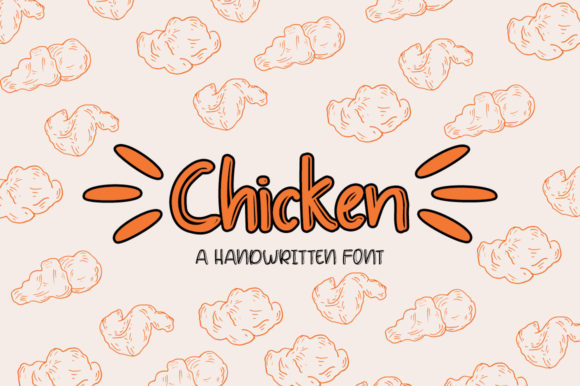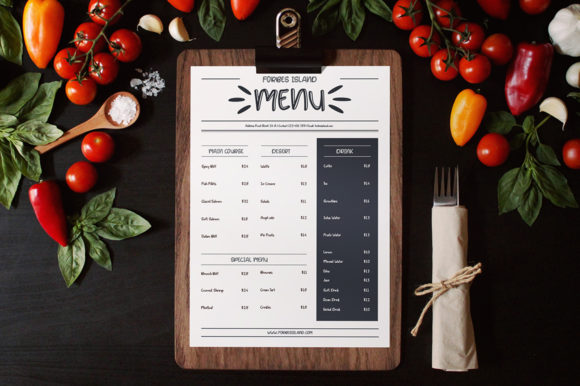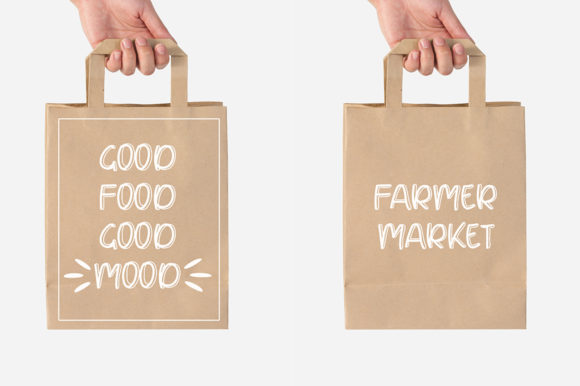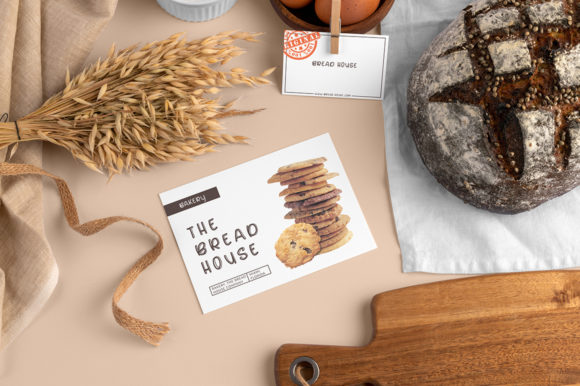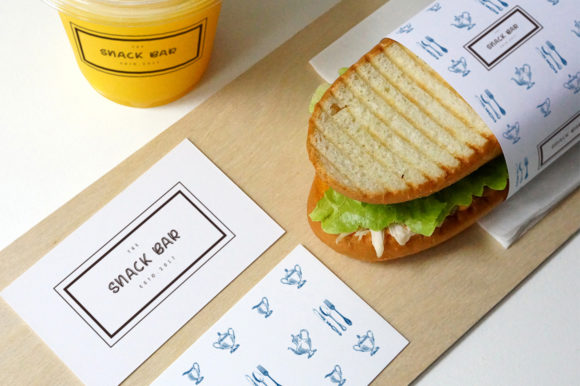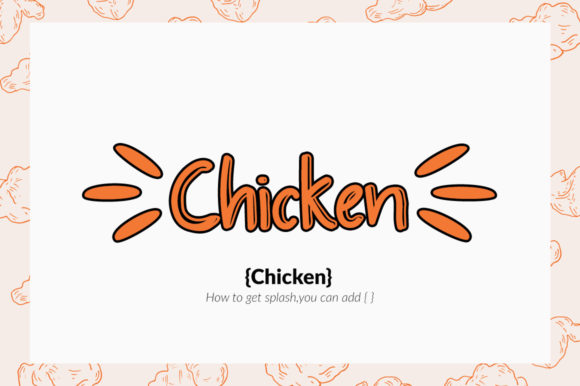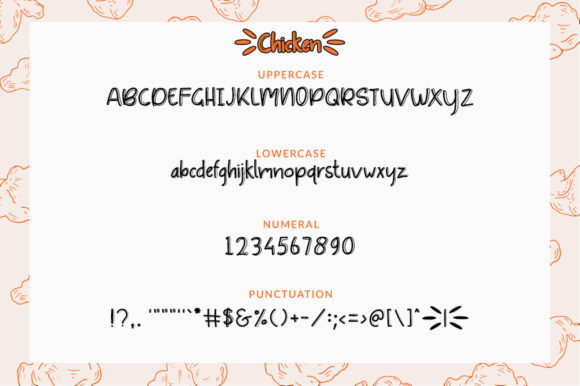
Chicken Font
About Chicken Font
Chicken is a sweet round lettered handwritten font, carefully handcrafted to become a true favorite. Whether it’s for web, print, moving images or anything else, it will look spectacular.